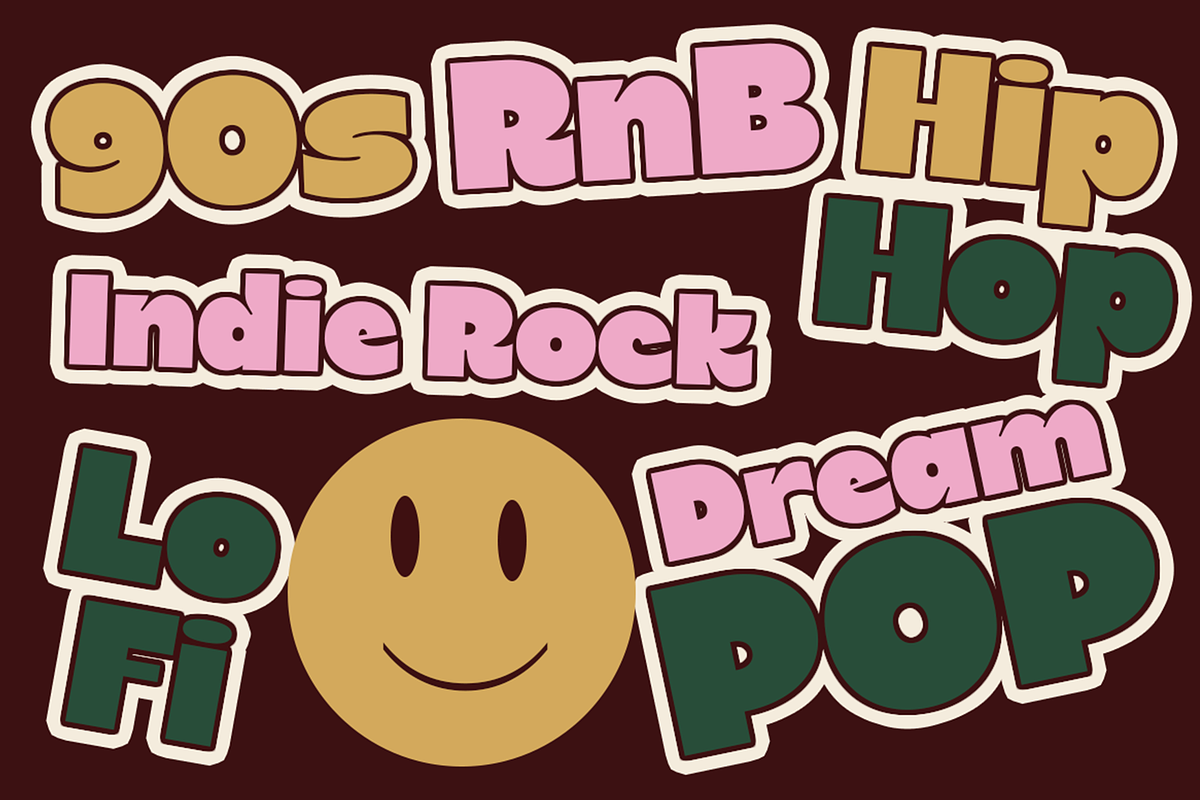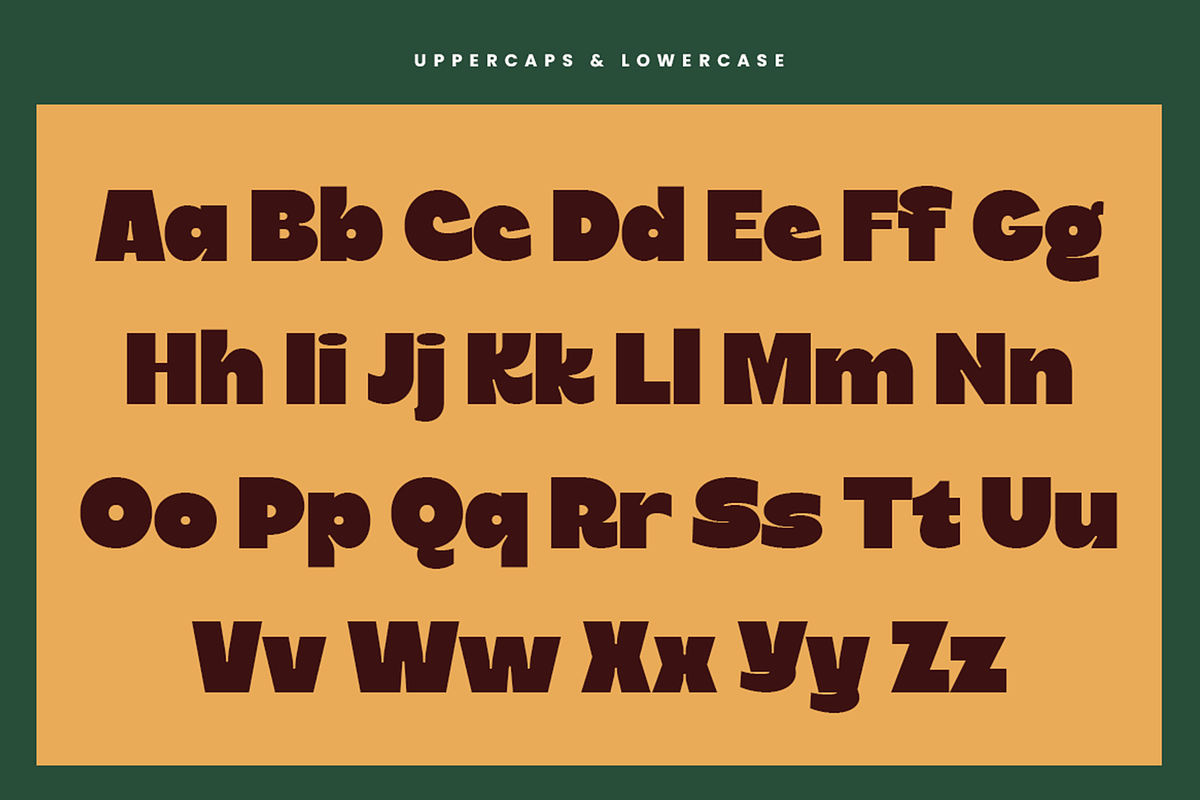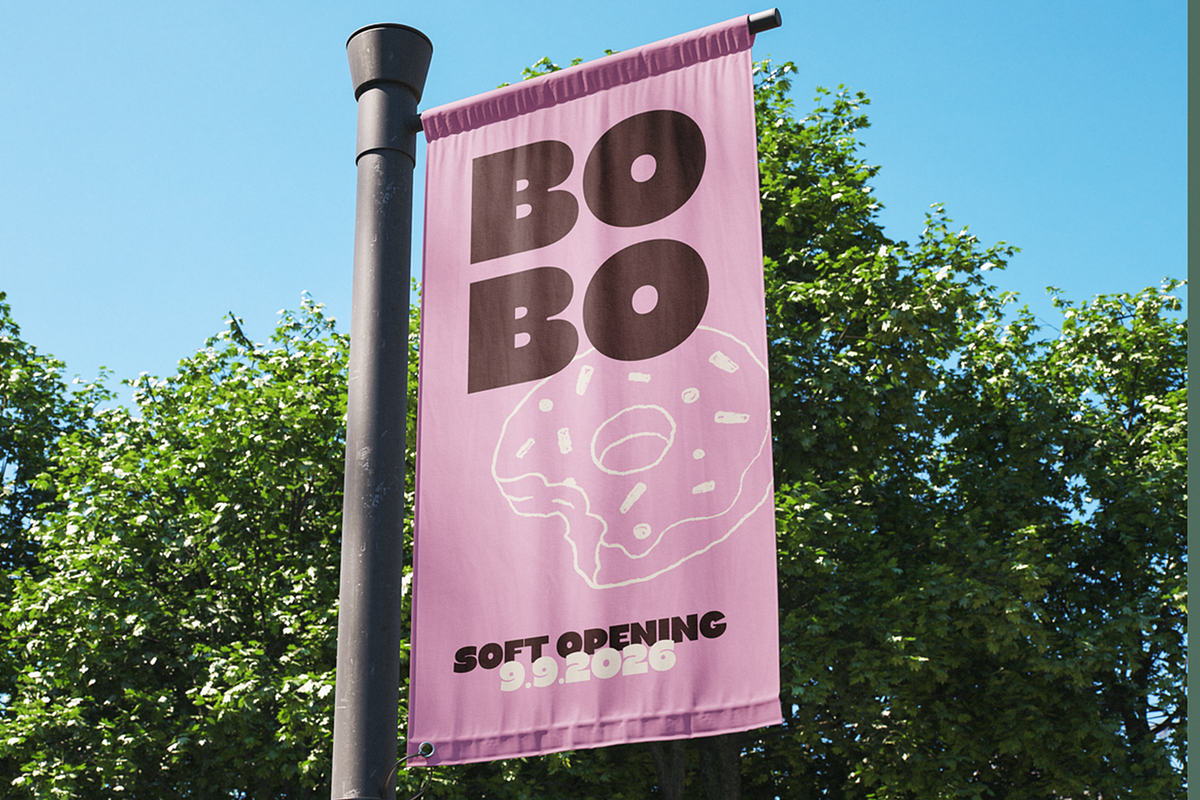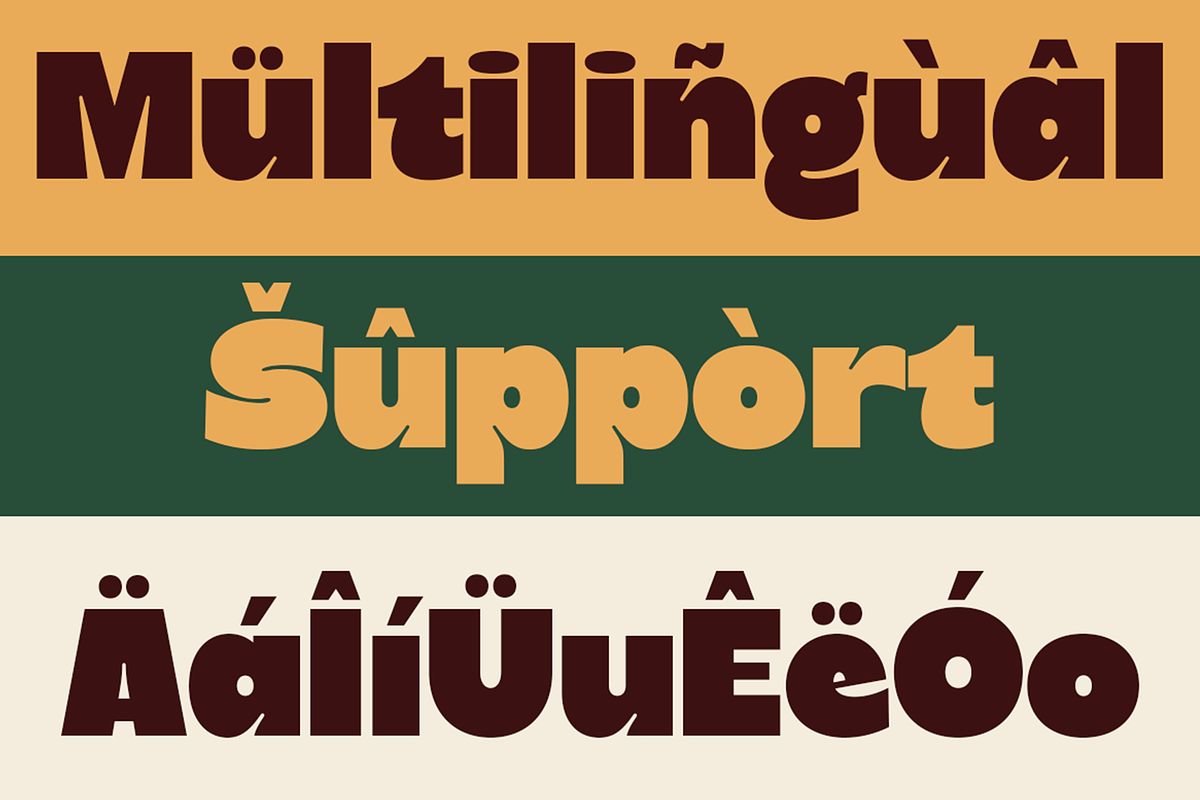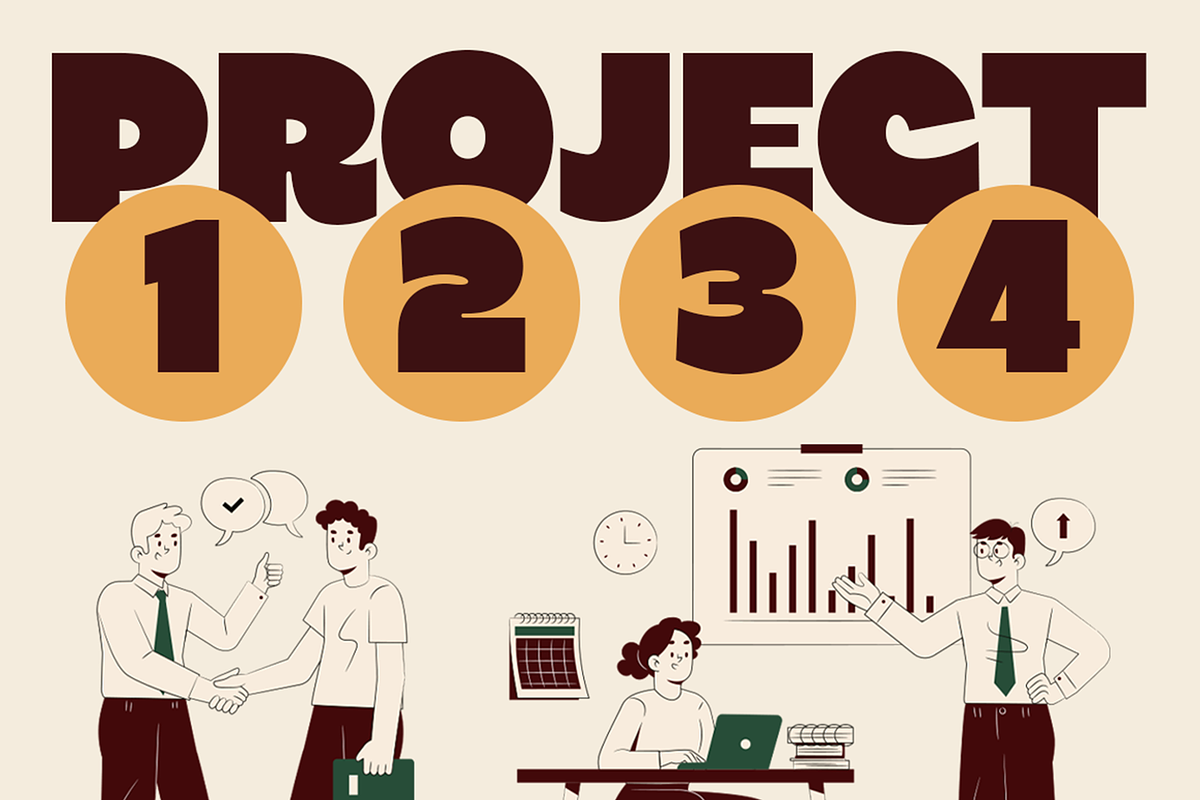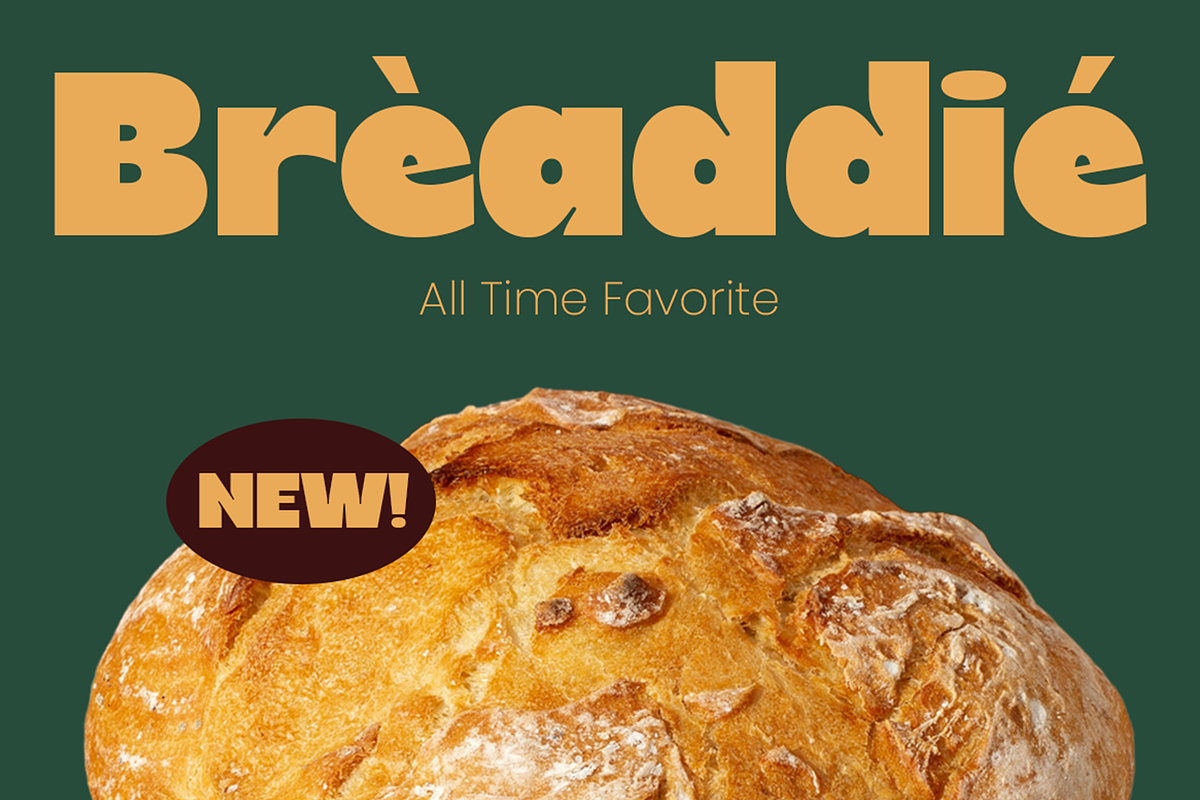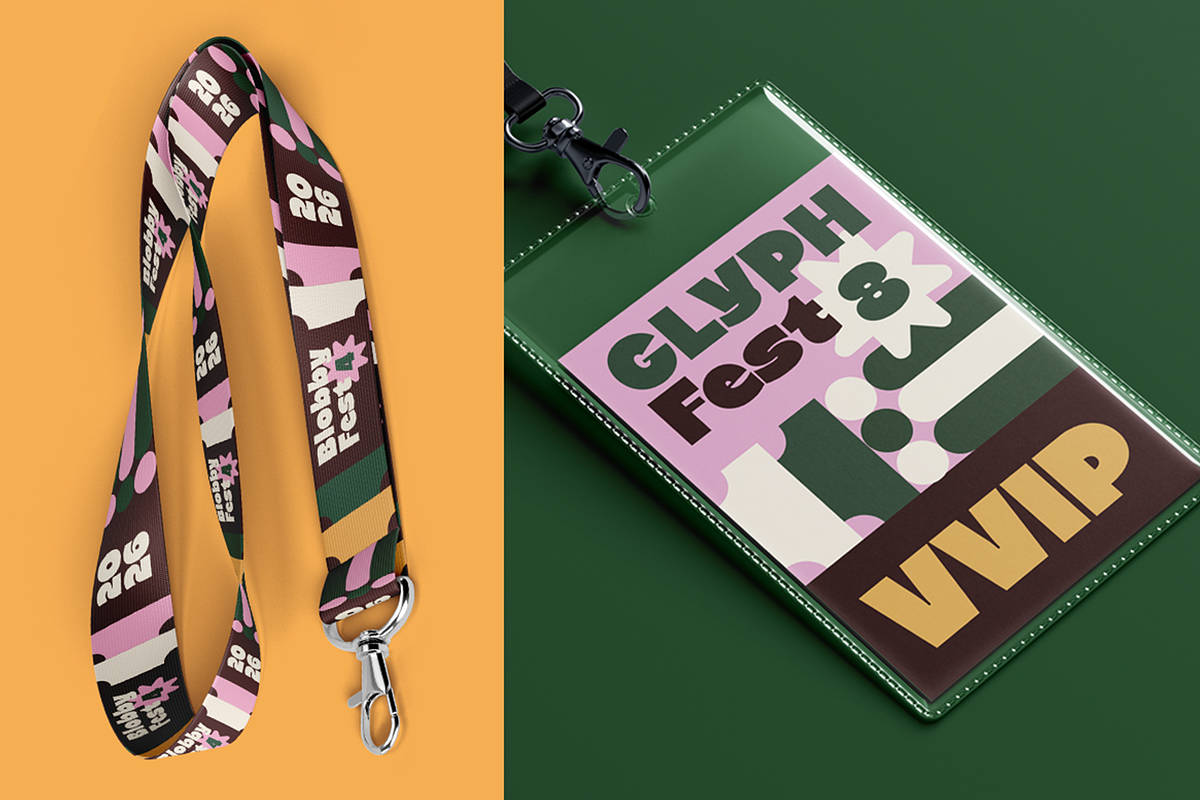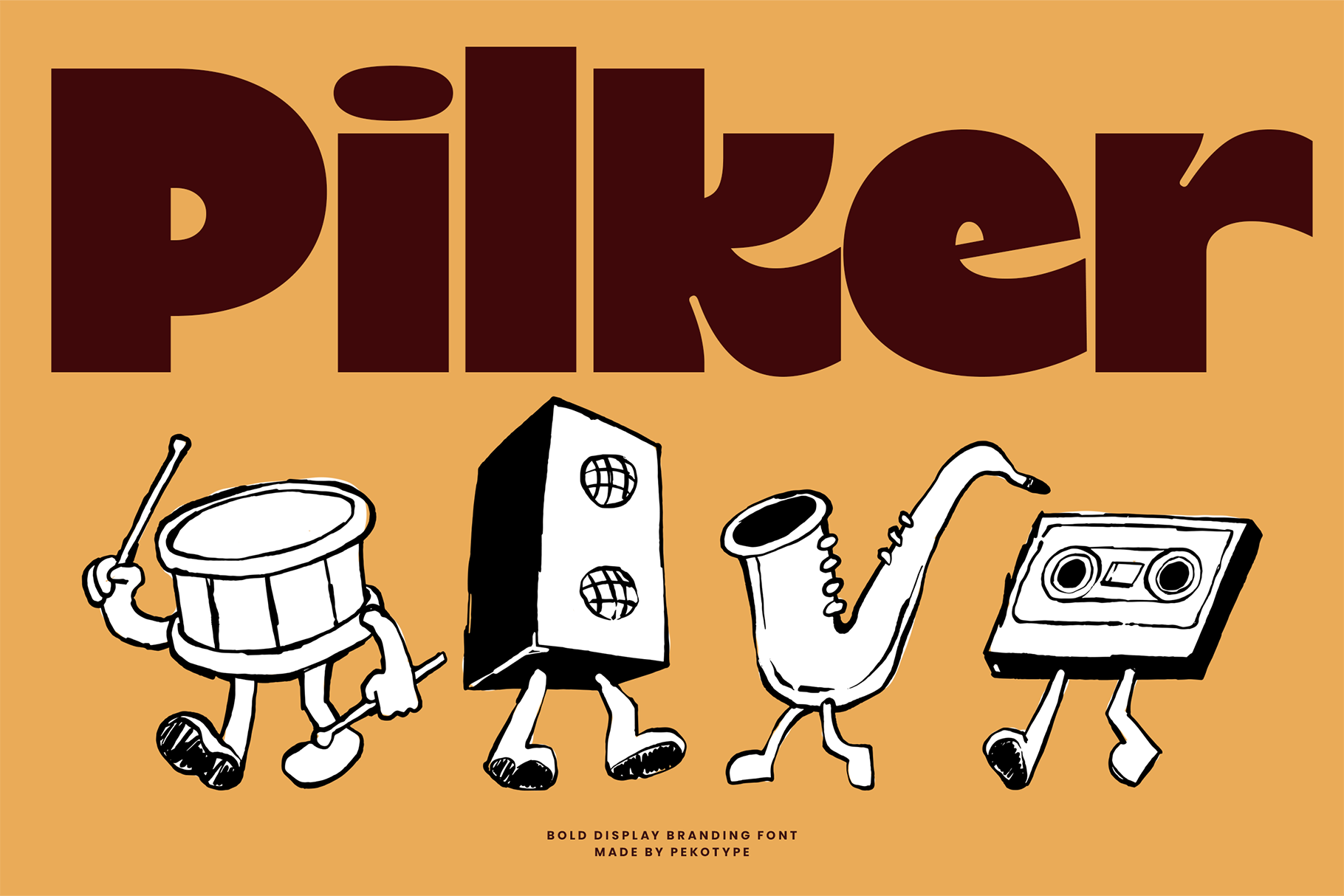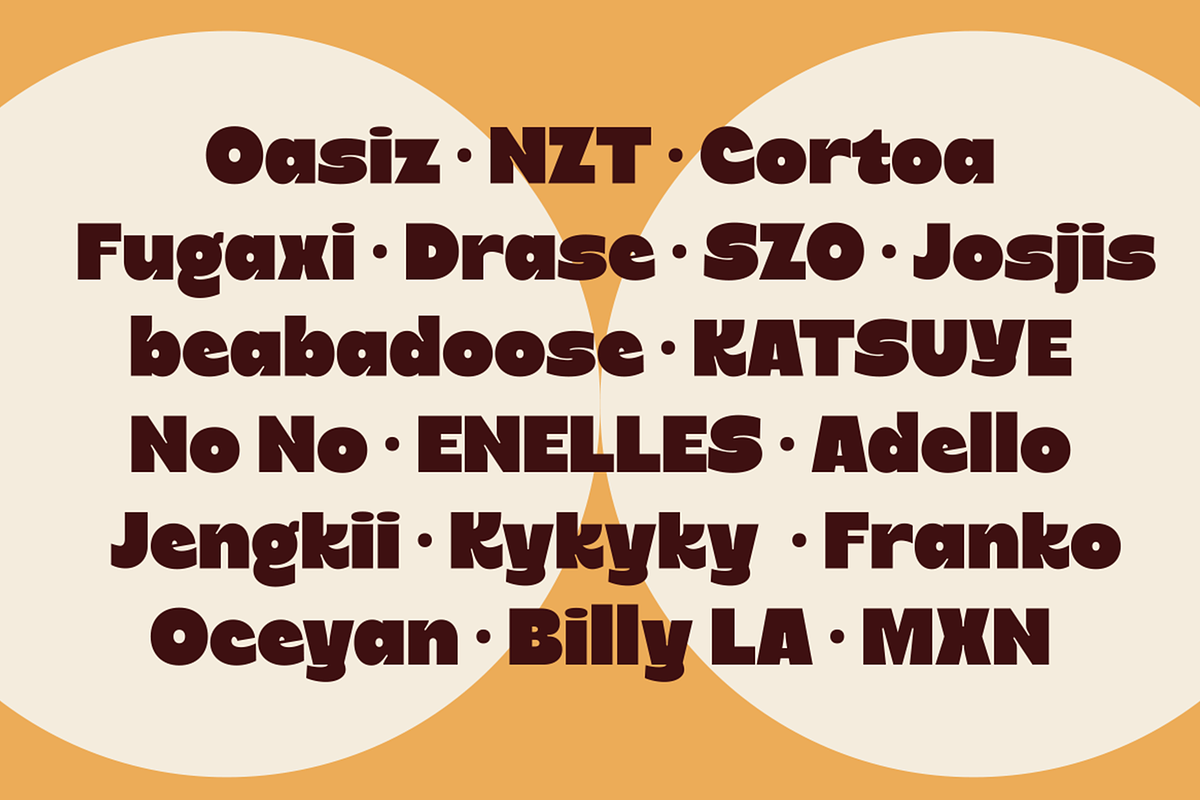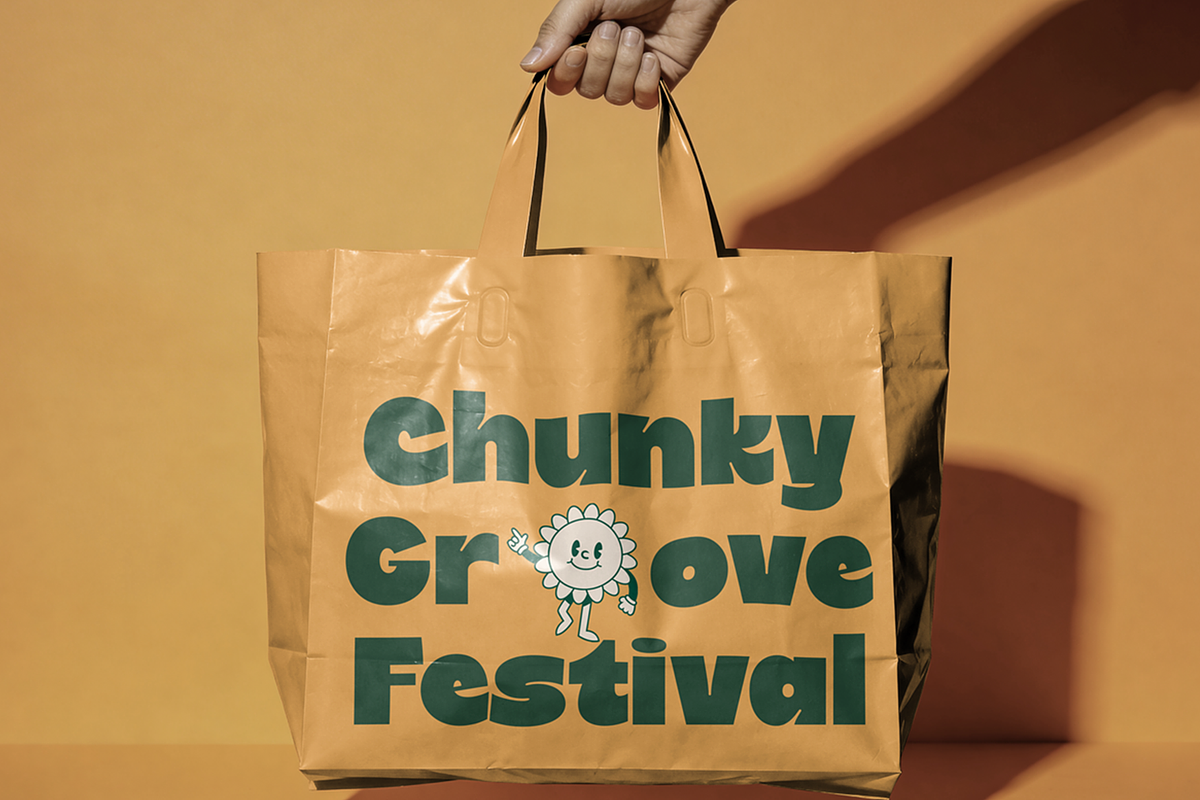
Pilker - Bold Logo Font with Inktrap
PILKER is a bold retro display font with chunky shapes, soft inktrap details, and a super fun personality. The letters feel playful, strong, and easy to notice, making your design look loud in a good way. Inspired by vintage posters, funky packaging, and groovy pop culture visuals, PILKER brings a warm and energetic vibe to every project.
This font is perfect for logos, music posters, café branding, snack packaging, festival graphics, social media content, banners, stickers, labels, product promotions, and creative headline designs. PILKER works great when you want your design to feel cheerful, eye-catching, nostalgic, and full of character without looking too serious.